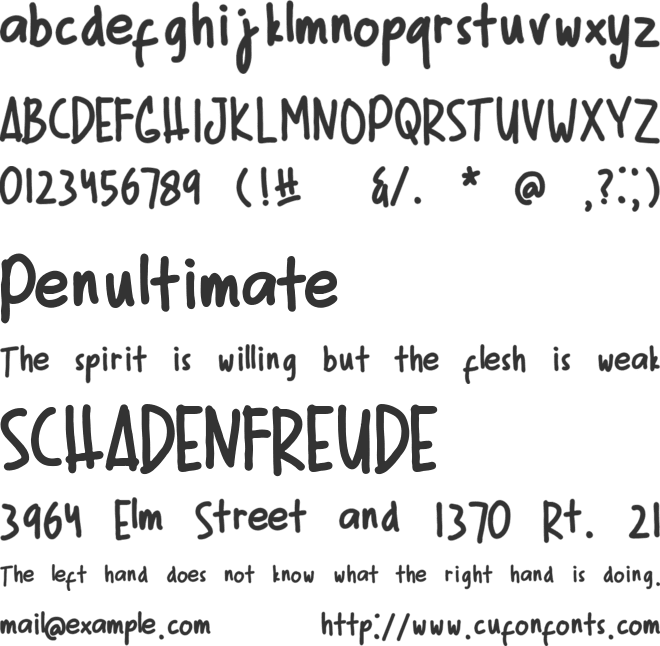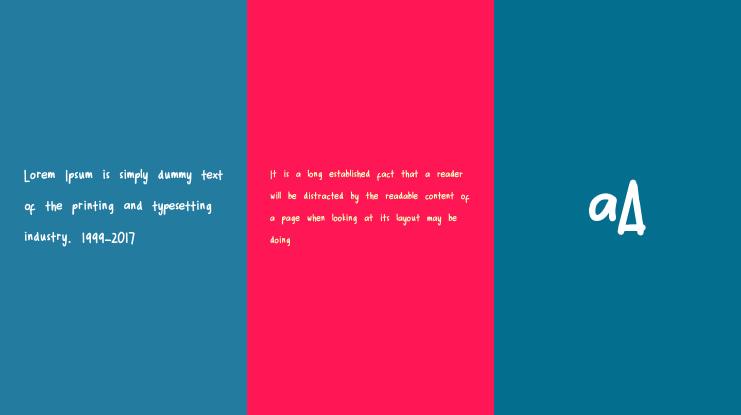
Thai tea Font
Thaitea is a simple, trendy and neat display font. Incredibly versatile, this font fits a wide pool of designs, elevating them to the highest levels. Add this font to your favorite creative ideas and notice how it makes them come alive!